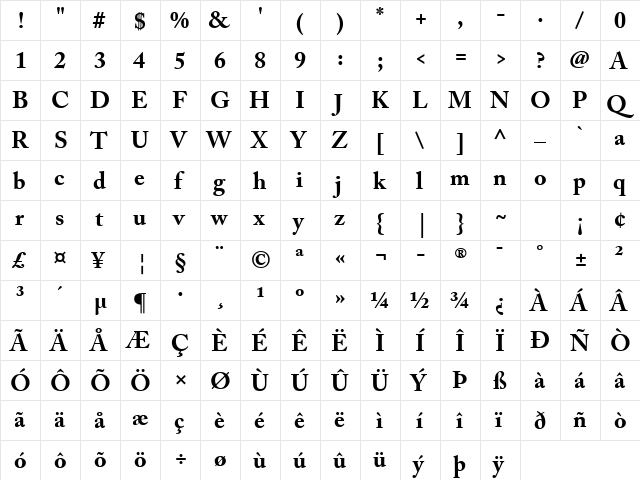
Adobe Caslon Pro Bold Regular
| Designer | Carol Twombly |
Design Context for Adobe Caslon Pro Bold Typeface
Adobe Caslon Pro Bold offers clean, dependable letterforms without strong stylistic allegiance, making it a practical choice for designers who need flexibility. Its bold stroke weight gives it real presence on the page.